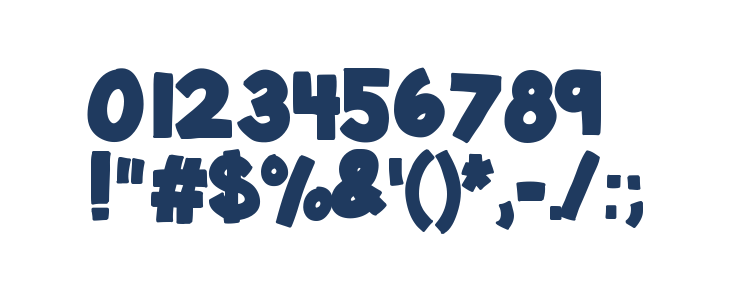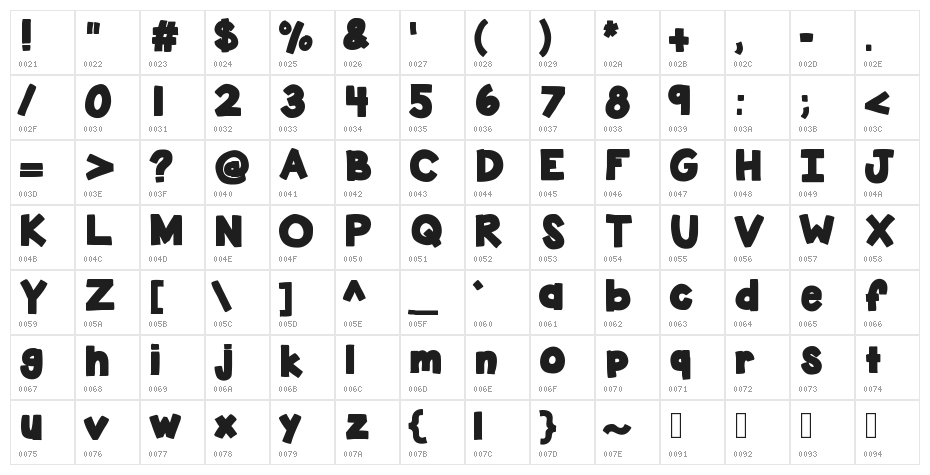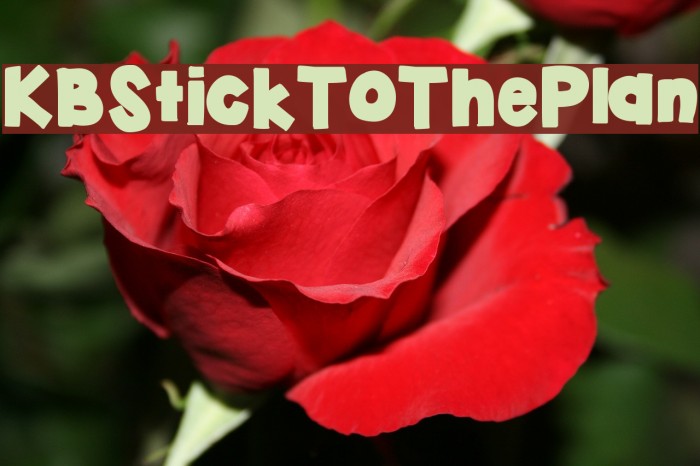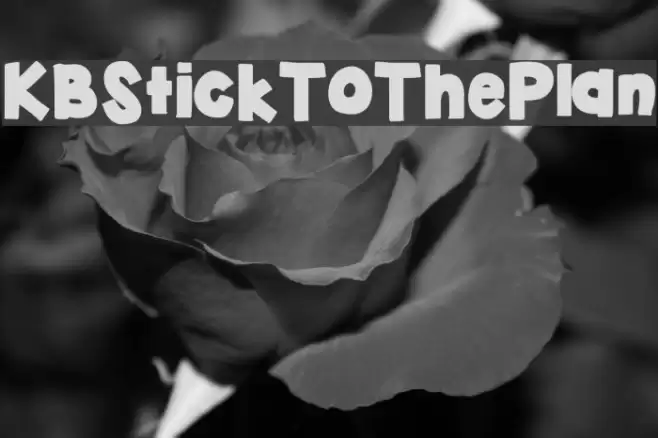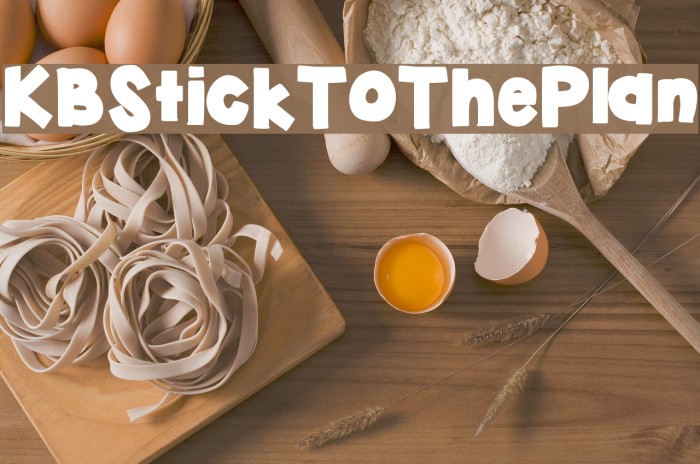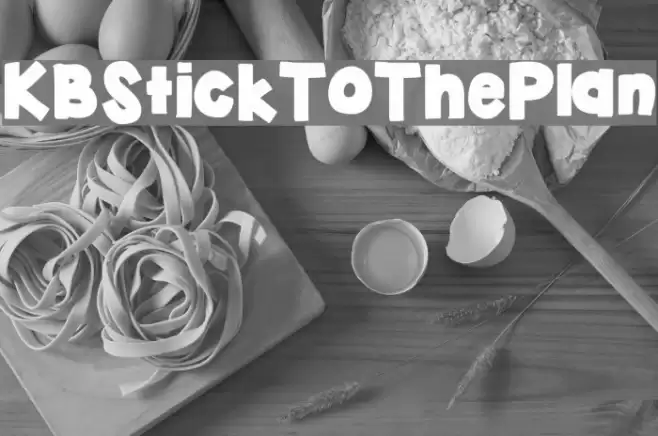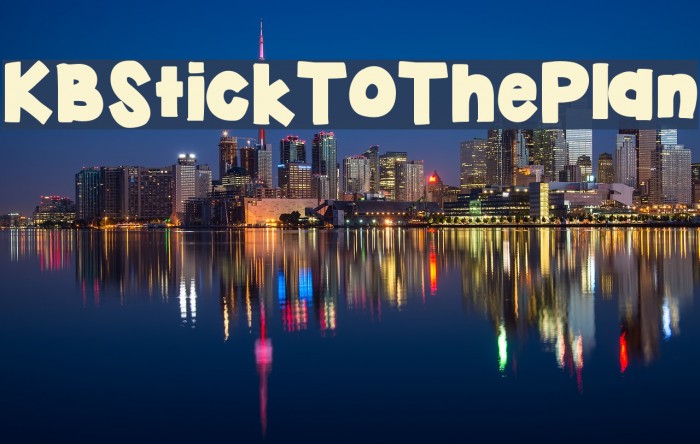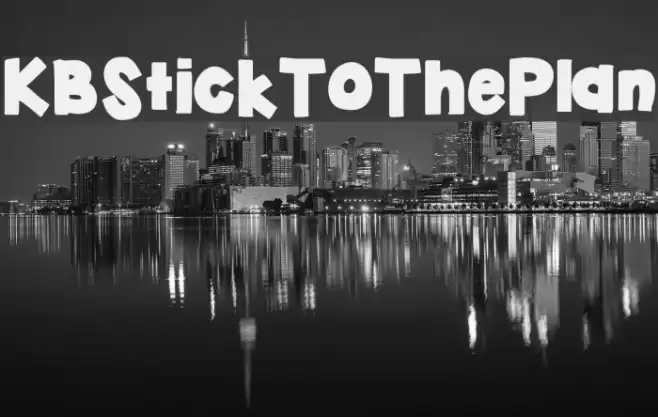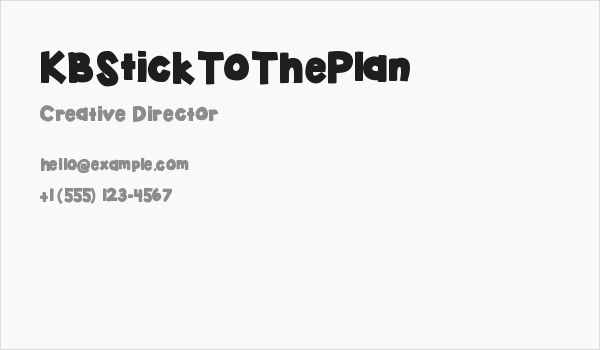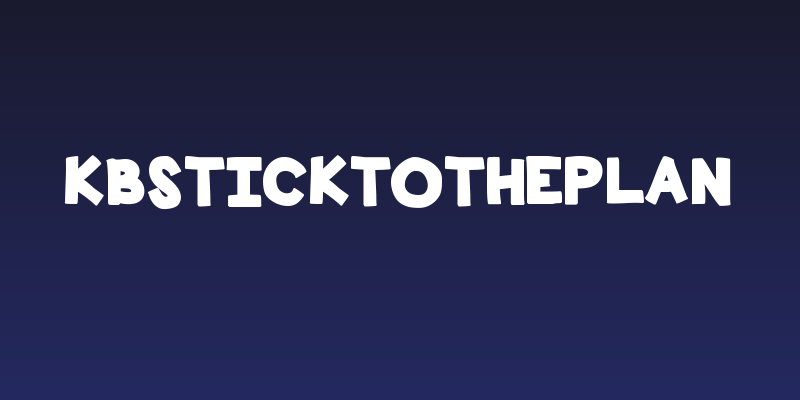
KBStickToThePlan Font
KBStickToThePlan Description
This font features a bold and playful style with thick, rounded strokes that give it a friendly and approachable appearance. The characters are slightly irregular, adding a whimsical touch that makes it stand out. The uppercase and lowercase letters maintain a consistent weight, while the numbers and special characters are equally bold and expressive. This font is ideal for projects that require a fun and informal tone, such as children's books, posters, and playful branding. Its unique style ensures that it captures attention and conveys a sense of creativity and joy.
| Proposed Projects | Children's books, playful posters, creative branding, and informal invitations. |